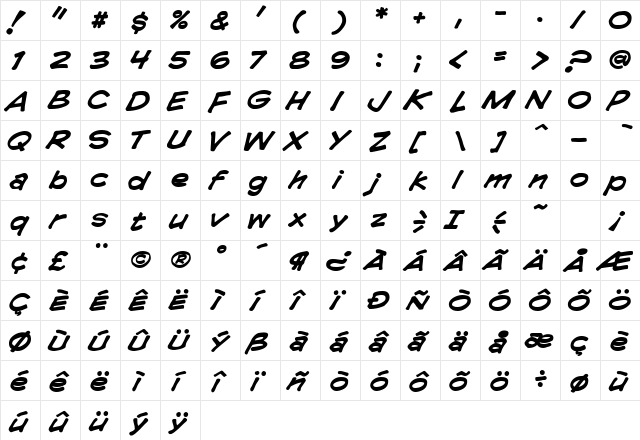
CC Comicrazy Bold Italic
Design Context for CC Comicrazy Typeface
CC Comicrazy trades formality for fun, with bouncy, characterful letterforms that bring warmth and energy to any project. Its italic angle brings a sense of urgency and motion to the letterforms.
Great for children's books, toy packaging, family event branding, and casual consumer-facing design.
Font Pairing: Pairs well with a rounded or humanist sans for body copy, maintaining the friendly tone without relying on CC Comicrazy to carry extended reading.
Pro Tip: Avoid using CC Comicrazy for long passages of text — it works best for headlines, labels, and short calls to action.